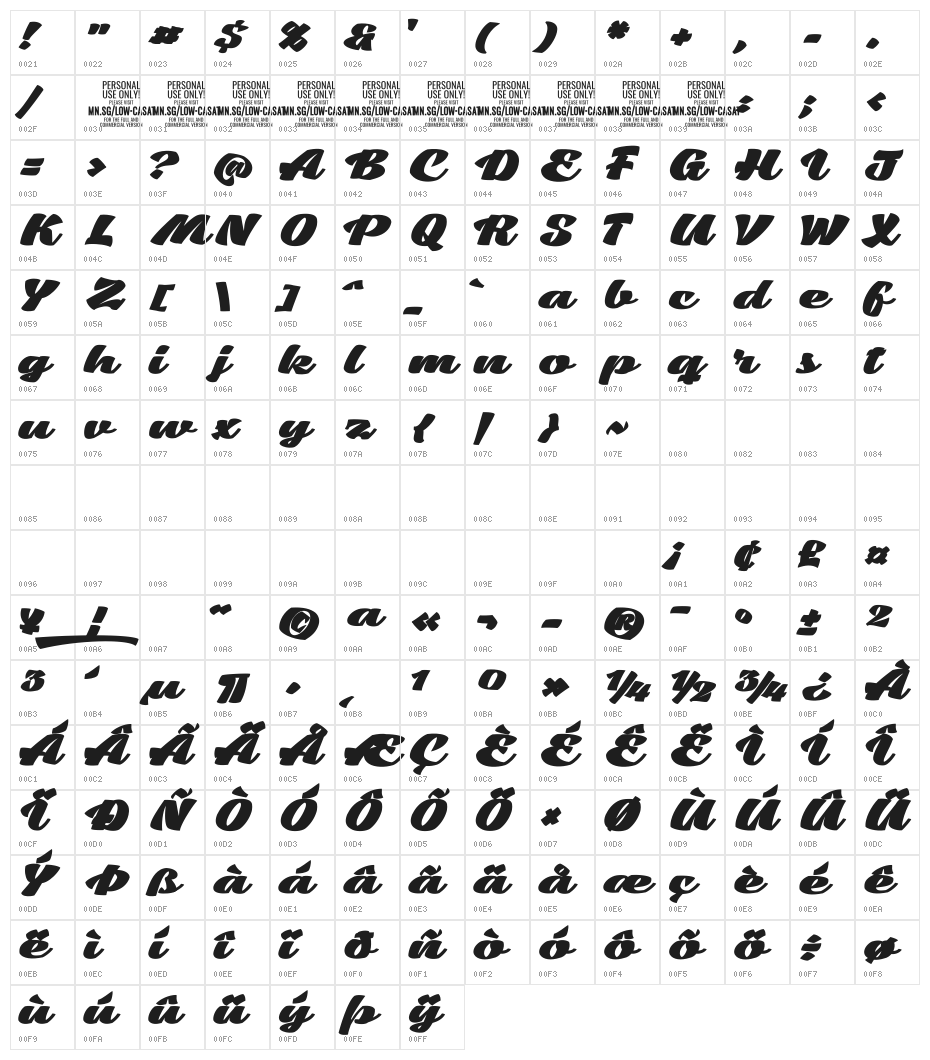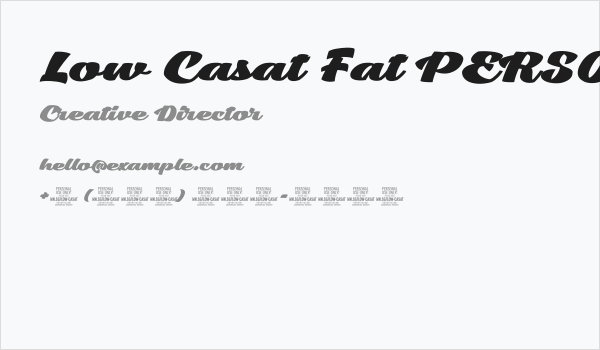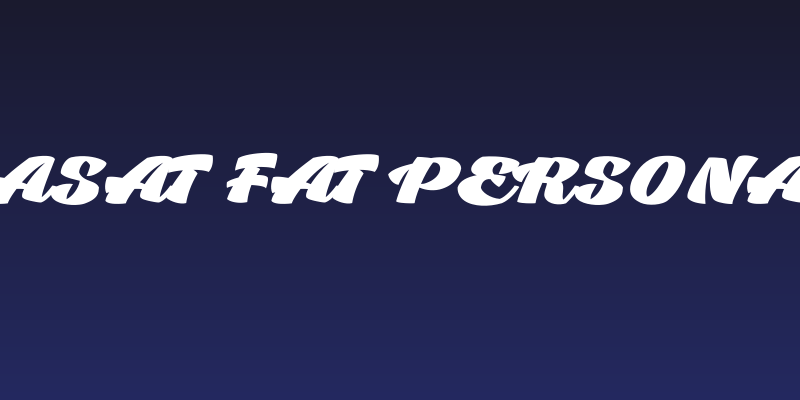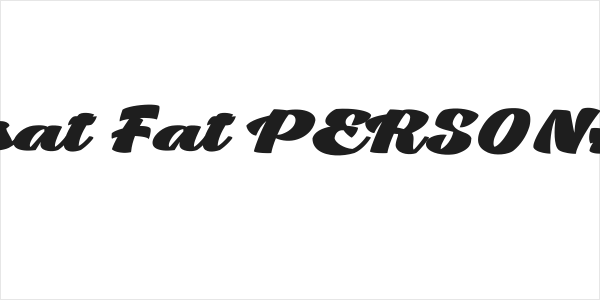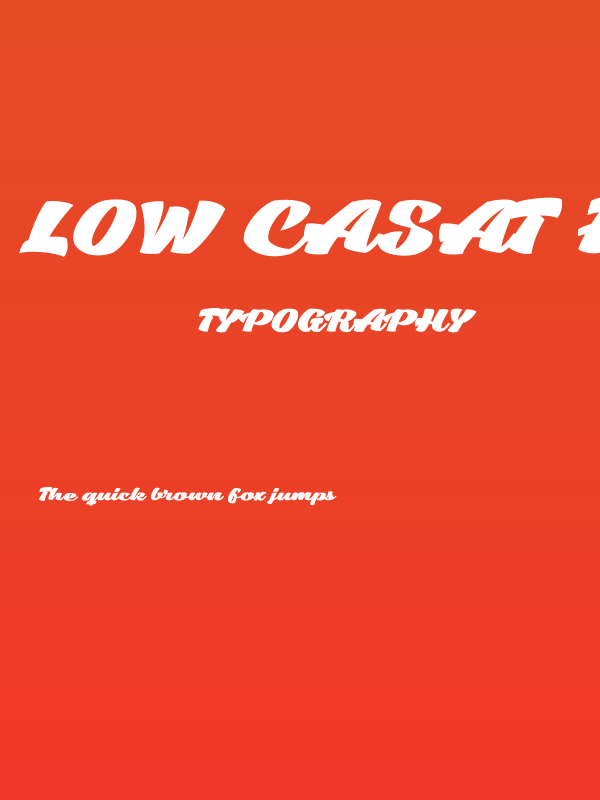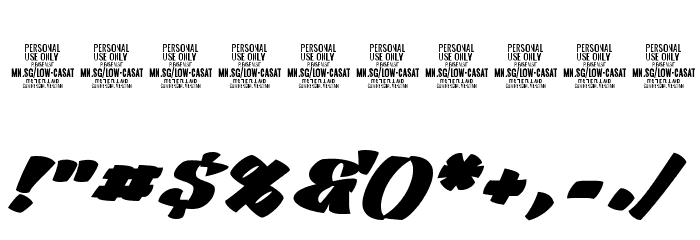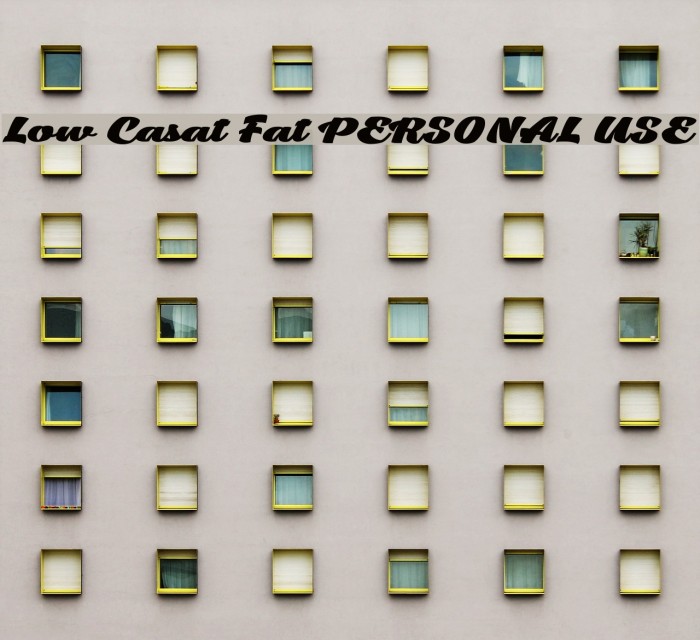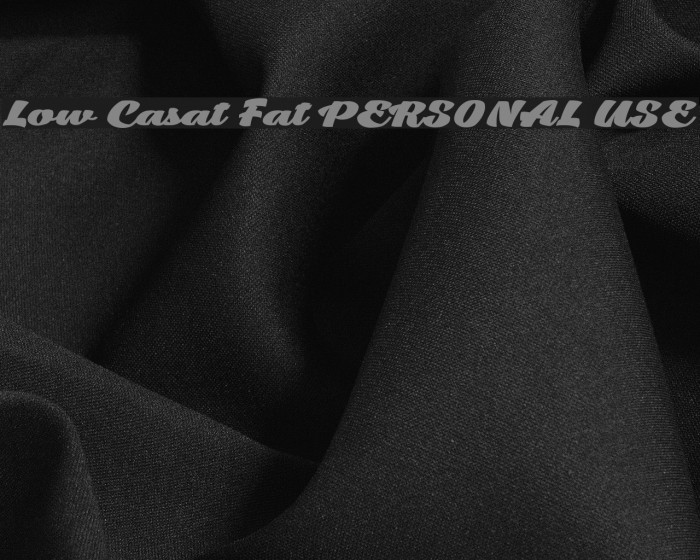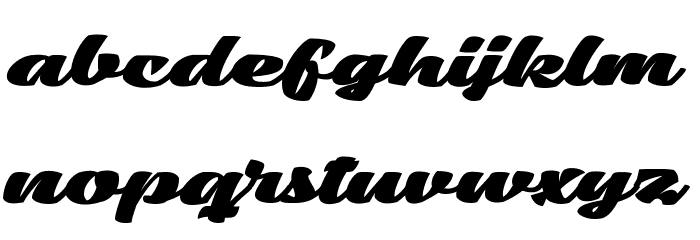
Low Casat Fat PERSONAL USE Font
Low Casat Fat PERSONAL USE Description
This font features a bold, cursive style with a strong emphasis on fluidity and movement. The characters are interconnected, creating a seamless flow that is both dynamic and elegant. The uppercase letters are slightly larger and more pronounced, while the lowercase letters maintain a consistent rhythm. The numbers and special characters are designed to match the overall aesthetic, ensuring a cohesive look across all text. The strokes are thick and consistent, providing a sense of strength and stability. This font is ideal for making a bold statement, with its high contrast and distinctive style.
| Proposed Projects | Ideal for branding, logos, headlines, and posters where a bold, stylish impact is desired. |